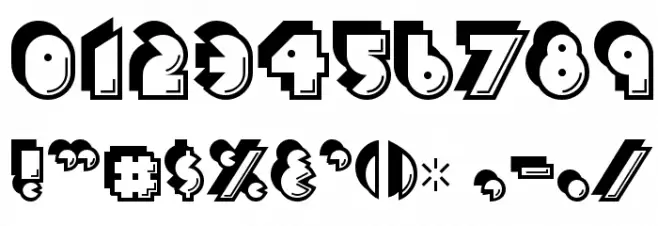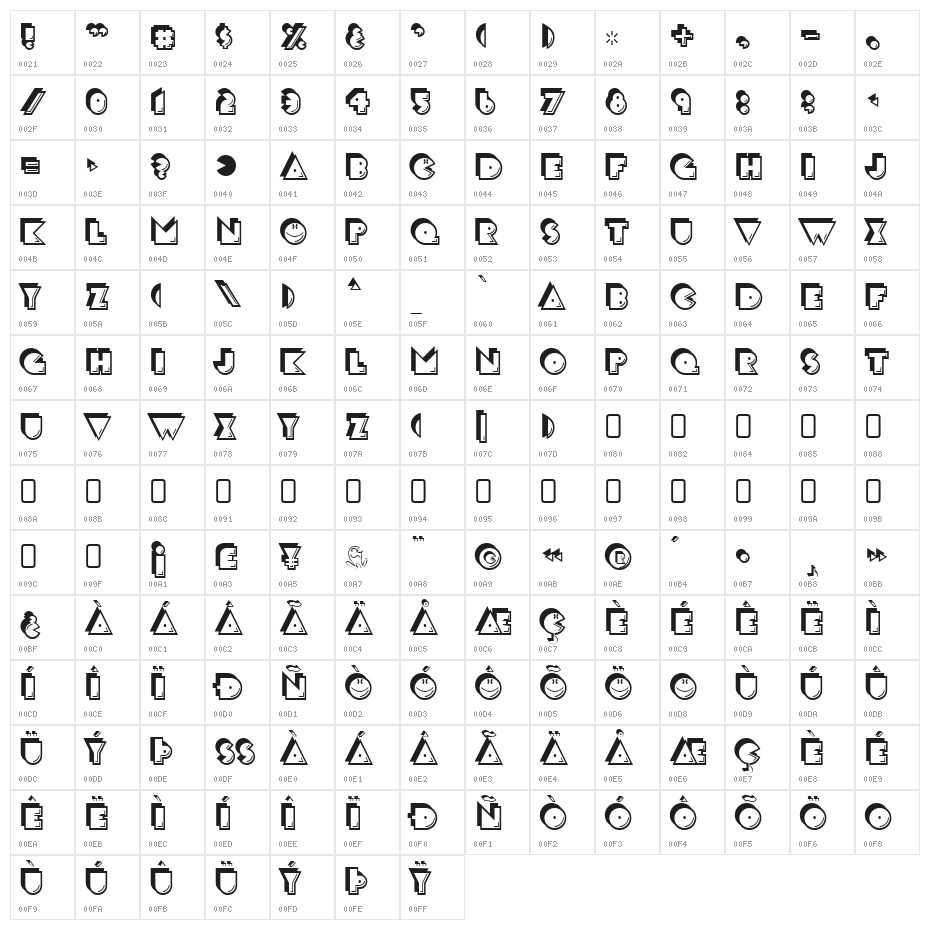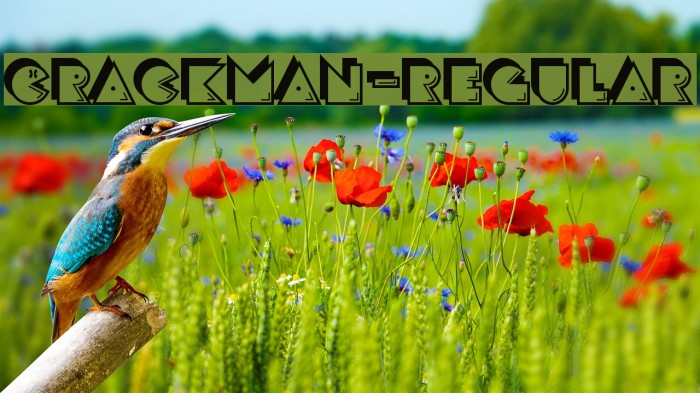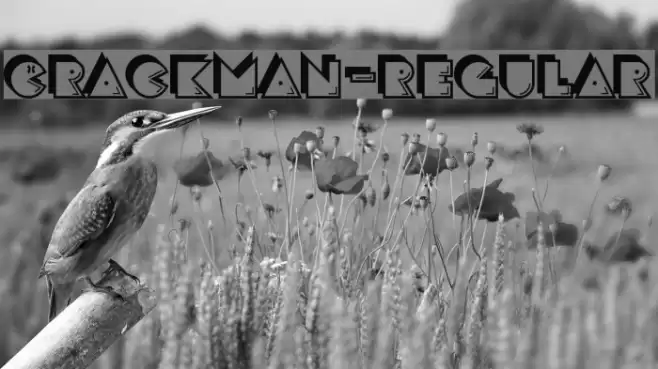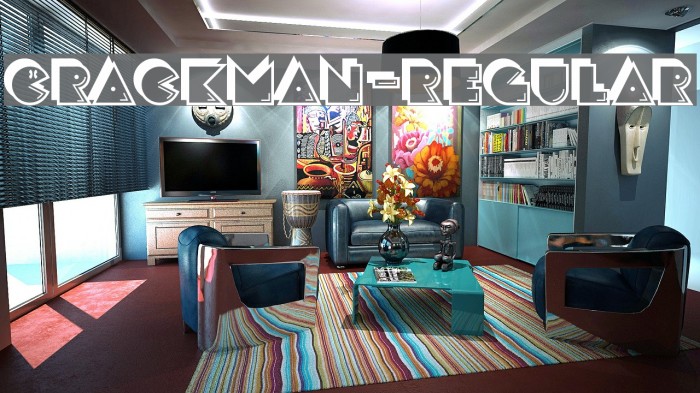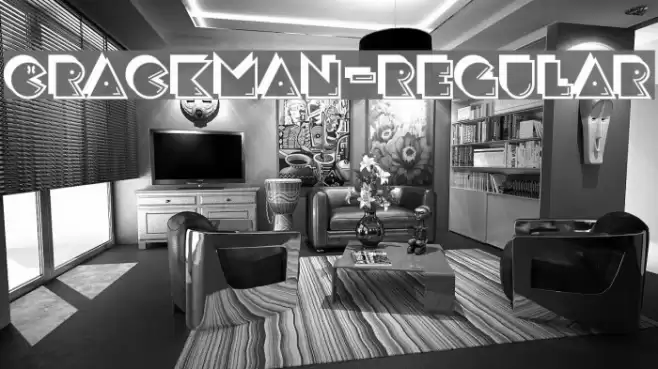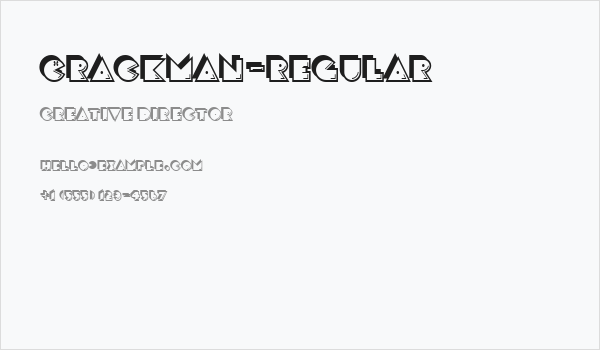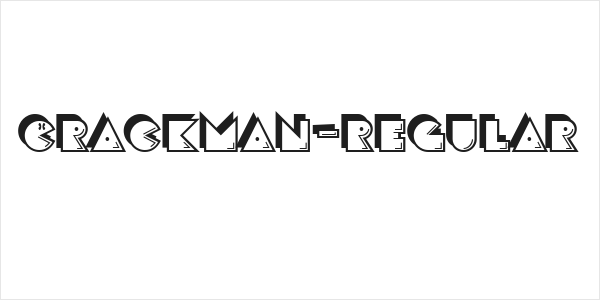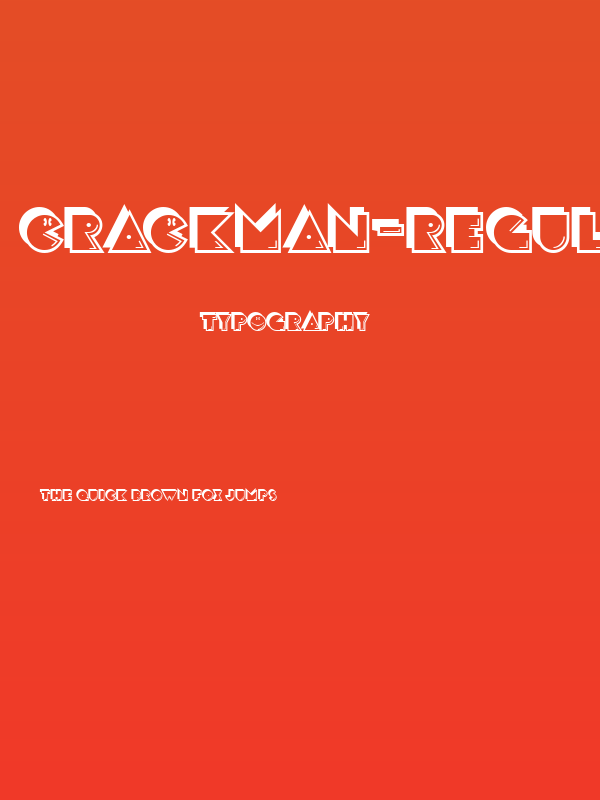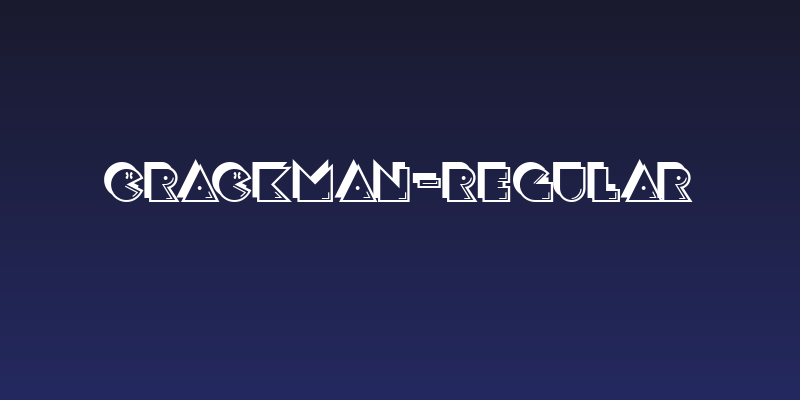
CrackMan-Regular Font
CrackMan-Regular Description
This font features a bold, geometric design with a playful and retro aesthetic. Each character is crafted with sharp angles and a distinct outline, giving it a three-dimensional appearance. The letters are filled with solid black and outlined in white, creating a striking contrast that enhances readability. The font includes unique embellishments, such as smiley faces and abstract shapes within certain letters, adding a whimsical touch. The numbers and special characters maintain the same bold style, ensuring consistency across all glyphs. This font is ideal for projects that require a fun and eye-catching display.
| Overall Style | Retro, Playful |
| Proposed Projects | Perfect for posters, video game graphics, children's books, and any creative project needing a fun, retro vibe. |